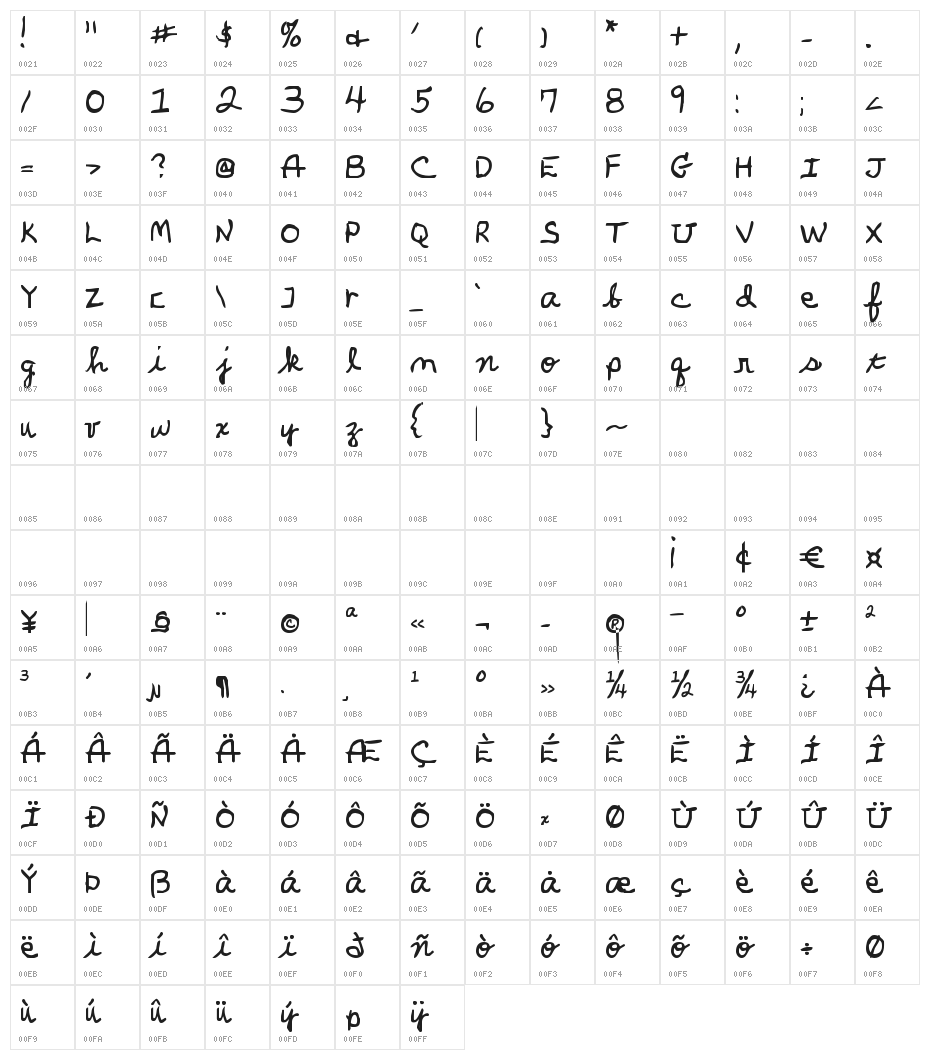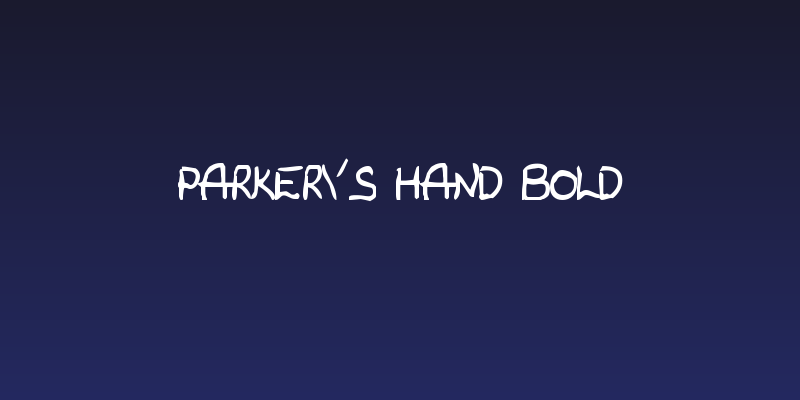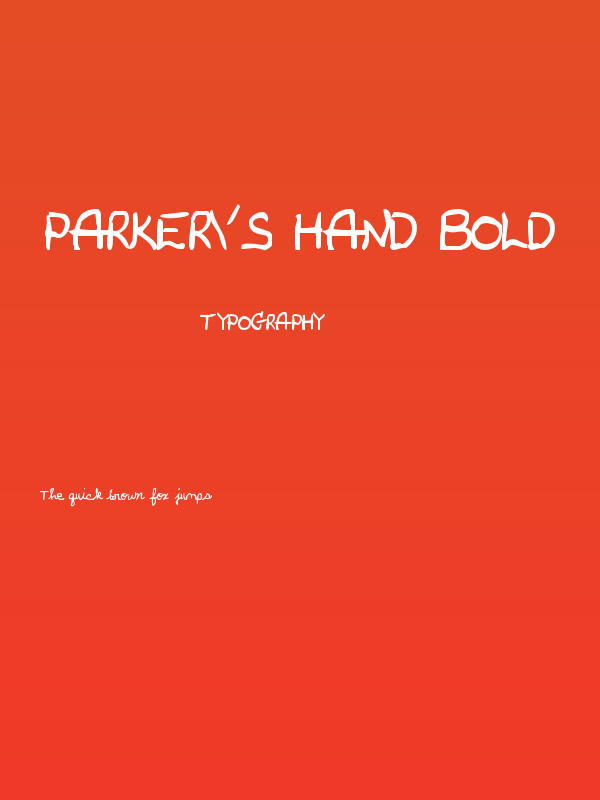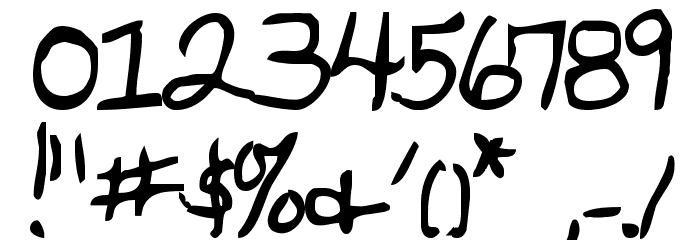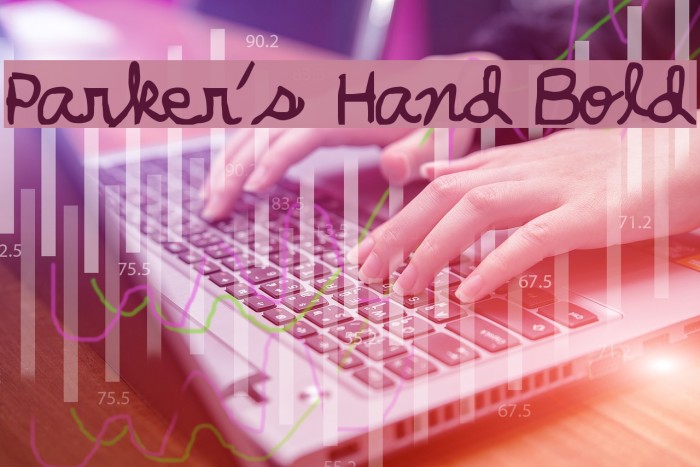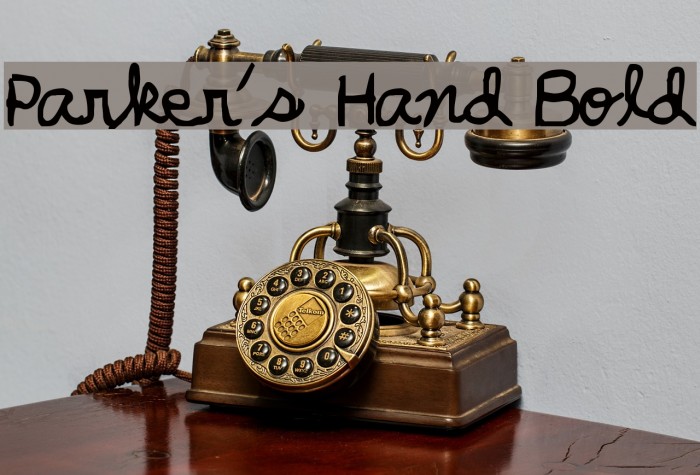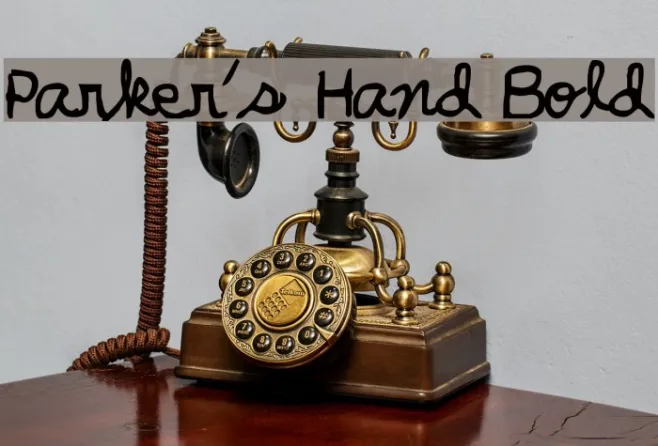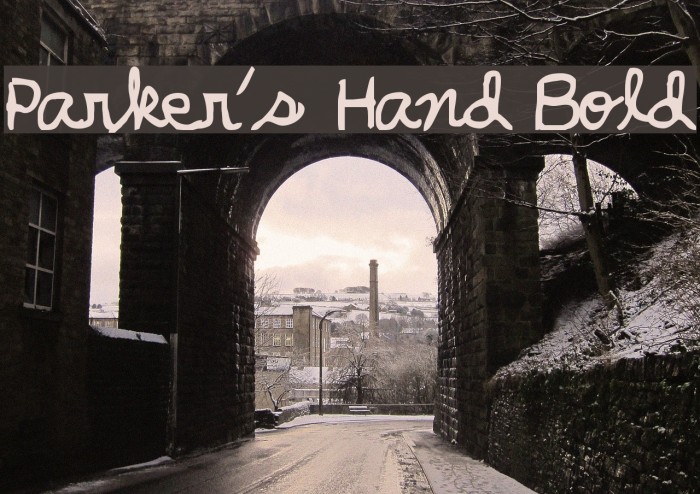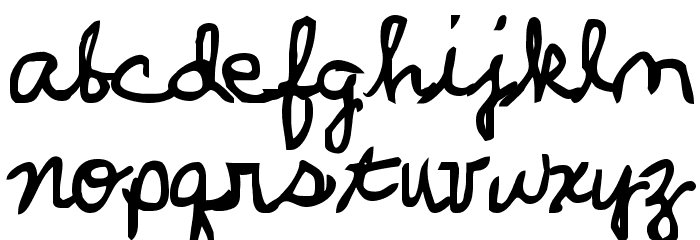
Parker's Hand Bold Font
Parker's Hand Bold Description
This font exudes a playful and casual handwritten style, characterized by its bold and expressive strokes. The letters have a natural flow, mimicking the appearance of handwriting with a marker or brush pen. The uppercase letters are slightly more structured, while the lowercase letters maintain a fluid and dynamic form. The numbers and special characters are consistent with the overall style, adding a cohesive look. The font's boldness makes it stand out, yet it retains a friendly and approachable feel, suitable for projects that require a personal touch.
| Overall Style | Casual, Playful |
| Use Case | Headlines, Logos, Informal Text |
| Proposed Projects | Ideal for greeting cards, children's books, casual branding, and social media graphics. |